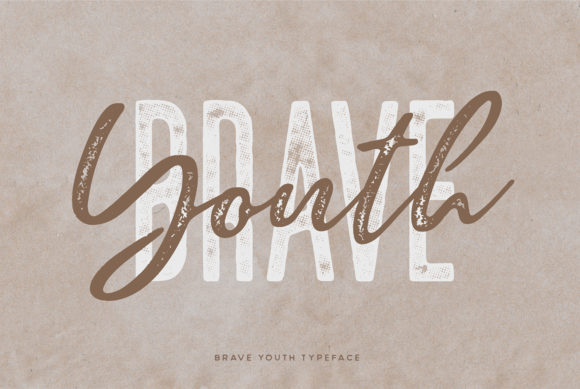
Brave Youth Font: A Retro Handwritten Font for Modern Designs
The Brave Youth font is a carefully handcrafted retro handwritten font that has been designed to become a true favorite among designers and typography enthusiasts. Its casual charm makes it appear wonderfully down-to-earth, readable, and incredibly versatile. This font is perfect for a wide range of design applications, from busy backgrounds to standalone headlines.
Key Features of Brave Youth Font
- Retro Handwritten Style: The Brave Youth font boasts a unique retro handwritten style that is both nostalgic and modern.
- Casual Charm: The font’s casual charm makes it perfect for designs that require a friendly and approachable tone.
- High Readability: The font is designed to be highly readable, even in small sizes and on busy backgrounds.
- Versatility: The Brave Youth font is incredibly versatile and can be used in a wide range of design applications.
Design Applications for Brave Youth Font
The Brave Youth font is perfect for a wide range of design applications, including:
- Headlines and Titles: The font’s bold and playful style makes it perfect for headlines and titles.
- Body Text: The font’s high readability makes it suitable for body text, especially in designs where a friendly tone is required.
- Signage and Posters: The font’s retro style makes it perfect for signage and posters that require a nostalgic or vintage look.
- Branding and Packaging: The font’s versatility makes it suitable for branding and packaging designs that require a unique and memorable typography.
Benefits of Using Brave Youth Font
The Brave Youth font offers a range of benefits, including:
- Unique and Memorable Typography: The font’s retro style and casual charm make it perfect for designs that require a unique and memorable typography.
- High Readability: The font’s high readability makes it suitable for designs that require a clear and concise communication.
- Versatility: The font’s versatility makes it suitable for a wide range of design applications.
Comparison with Other Fonts
The Brave Youth font can be compared to other retro handwritten fonts, such as:
- Pacifico: A beautiful and elegant handwritten font with a similar retro style.
- Great Vibes: A fun and playful handwritten font with a similar casual charm.
- Alex Brush: A elegant and sophisticated handwritten font with a similar nostalgic look.
However, the Brave Youth font stands out from these fonts due to its unique combination of retro style, casual charm, and high readability.
Tips for Using Brave Youth Font
Here are some tips for using the Brave Youth font:
- Use it for Headlines and Titles: The font’s bold and playful style makes it perfect for headlines and titles.
- Pair it with Other Fonts: The font can be paired with other fonts to create a unique and memorable typography.
- Use it for Body Text: The font’s high readability makes it suitable for body text, especially in designs where a friendly tone is required.
- Experiment with Different Colors: The font’s retro style makes it perfect for designs that require a bold and playful color scheme.
The Brave Youth font is a unique and memorable retro handwritten font that is perfect for a wide range of design applications. Its casual charm, high readability, and versatility make it a great choice for designers and typography enthusiasts. With its bold and playful style, the Brave Youth font is sure to make your designs stand out.